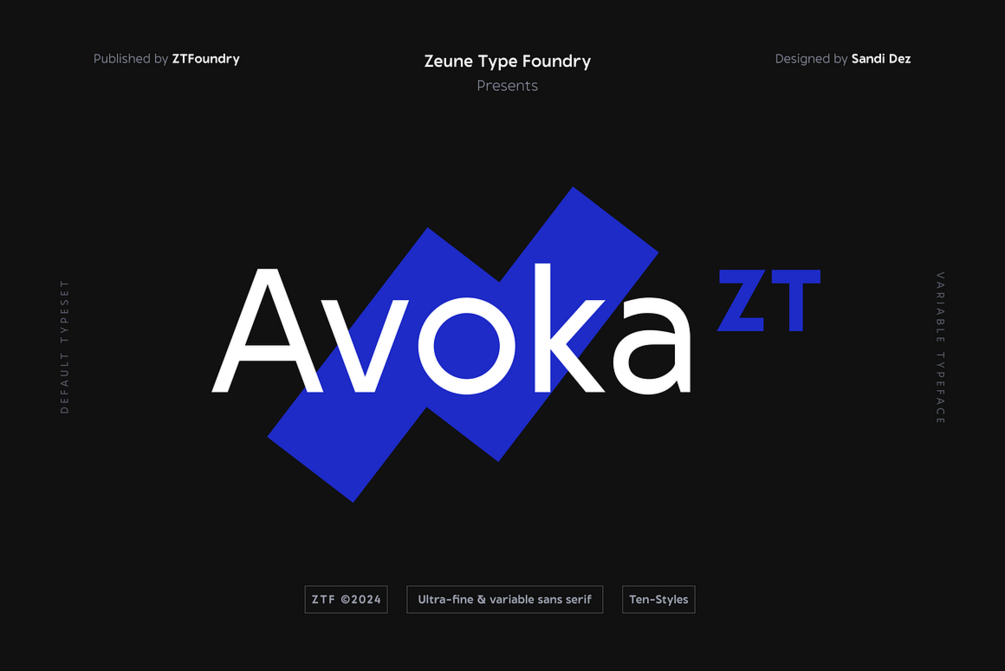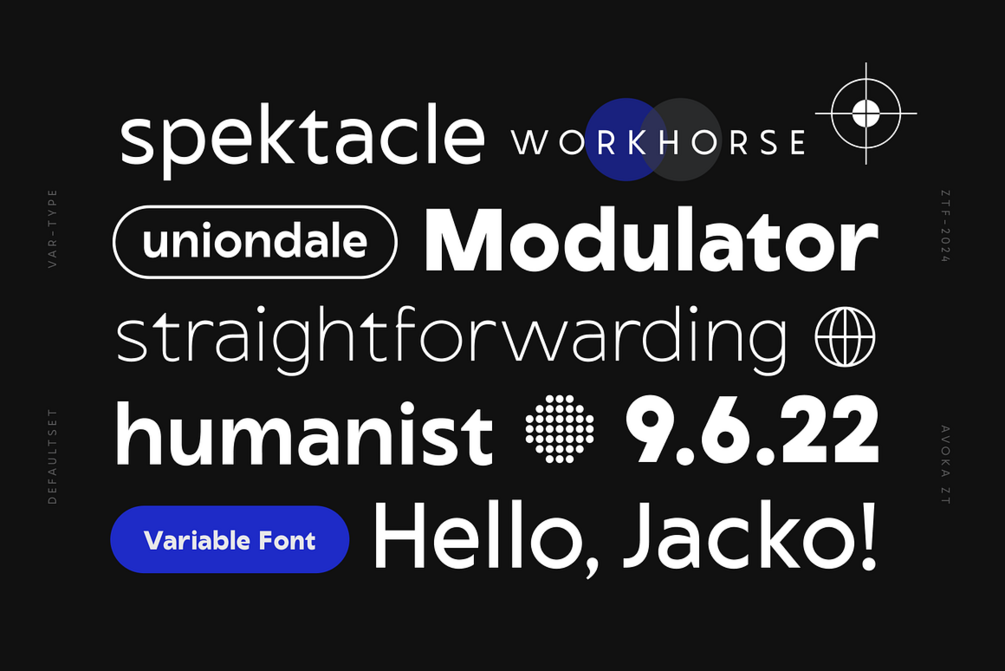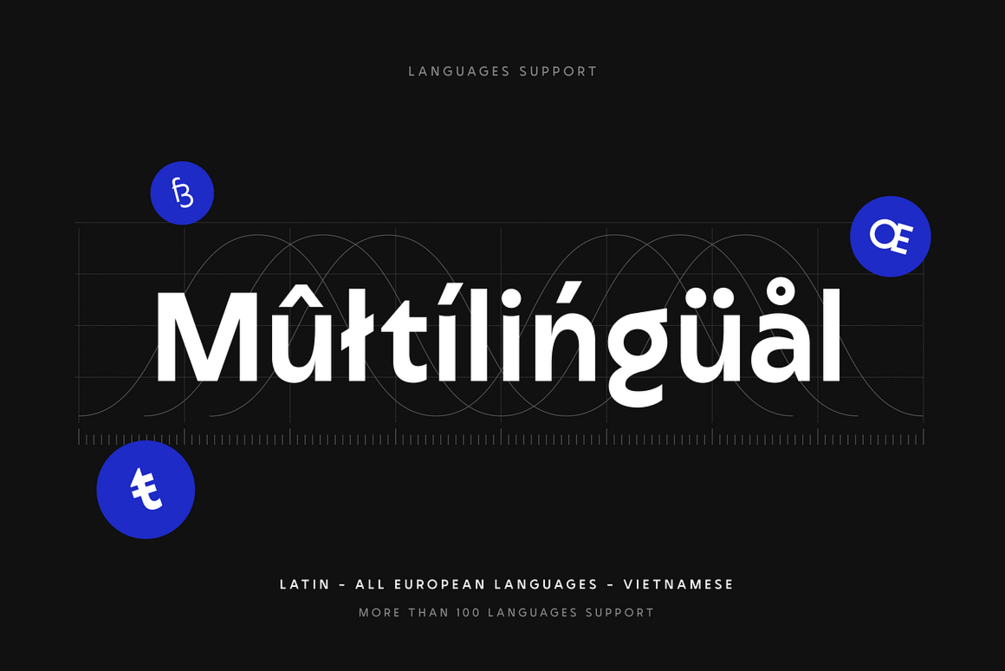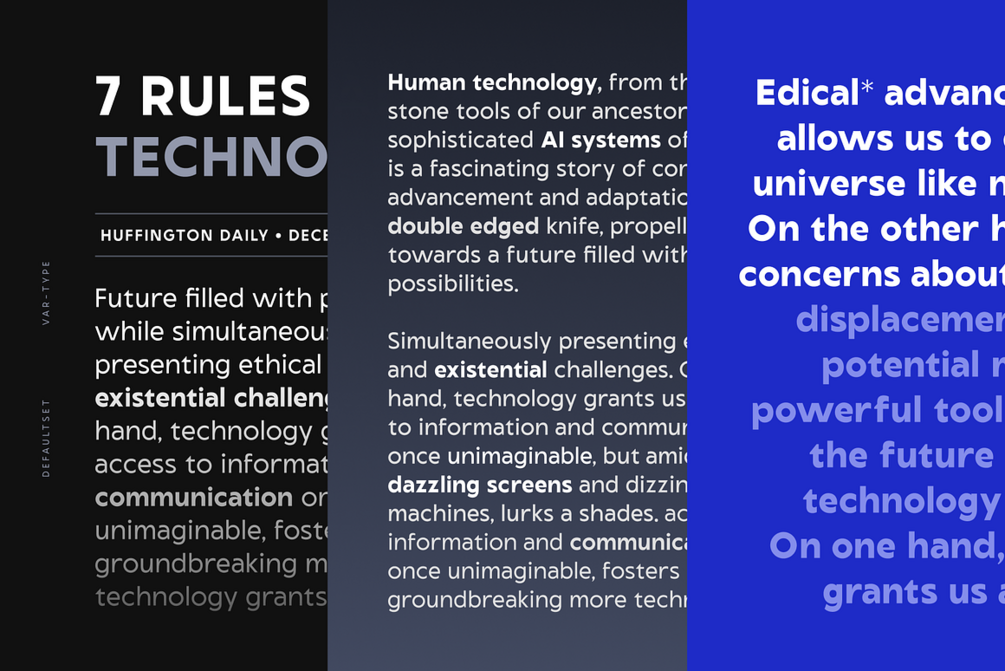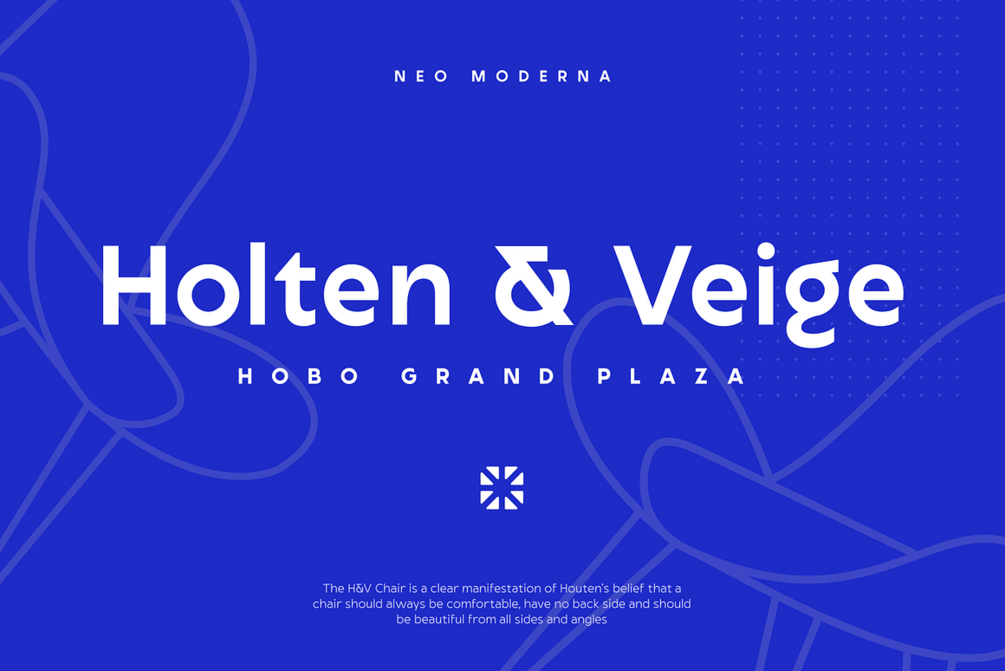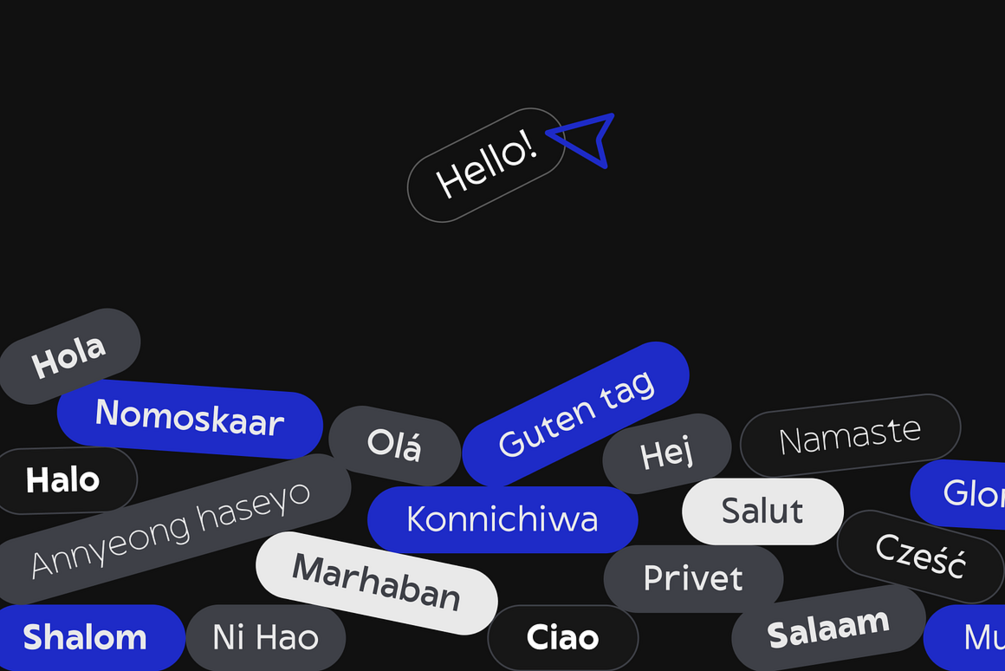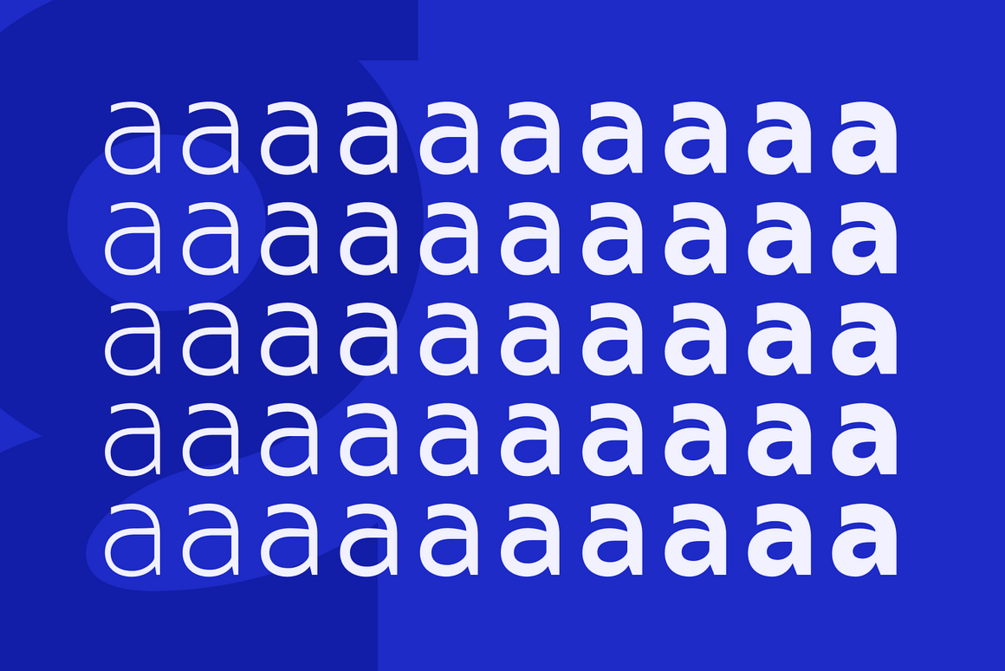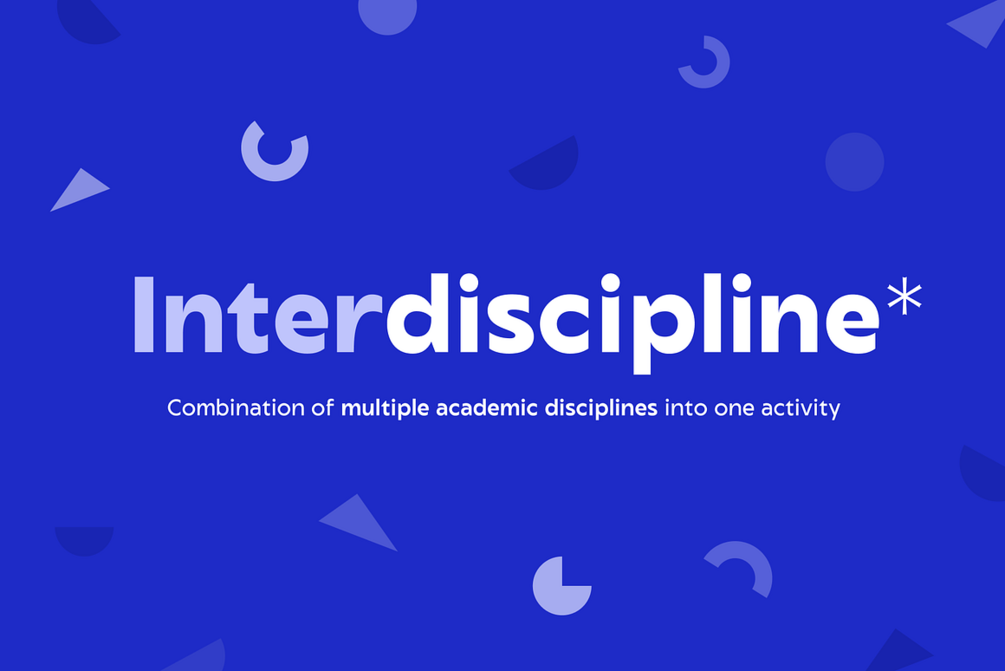
Avoka® ZT - Humanist Sans Serif Family
Avoka® ZT blends the clean lines of geometric forms with the subtle warmth of humanist design, offering a versatile typeface for any project. This variable font empowers you to seamlessly adjust the weight from delicate hairlines to heavy statements, all with the click of a dial.
Inspired by classic geometric sans serifs, yet infused with subtle curves and details that add warmth and readability with clean lines and consistent letterforms provide a modern and sophisticated feel.
Effortlessly adjust the weight from hairline to heavy, unlocking endless typographic possibilities. Avoka® ZT supports multiple languages and includes useful OpenType features for advanced typography. The fonts suit branding, websites, UI/UX design, editorial layouts, posters, headlines, and more.
10 weights from Hairline to Heavy
• Stylistic Alternates
• Ligatures
• Fraction
• 100+ Languages support
This complete family of Avoka® ZT contains more OTF features:
Basic Features
Uppercase, Lowercase, Numbers, Ligatures, Symbols and Punctuations.
OTF Features
Discretionary (Rare) Ligatures, Multilanguage-support, Stylistic alternates, Decimal digits, Fractions, Small figures.
Variable Fonts
10 weights from Hairline to Heavy.
Weights
10 Weights : Hairline, Thin, ExtraLight, Light, Regular, Medium, SemiBold, Bold, ExtraBold, and Heavy.